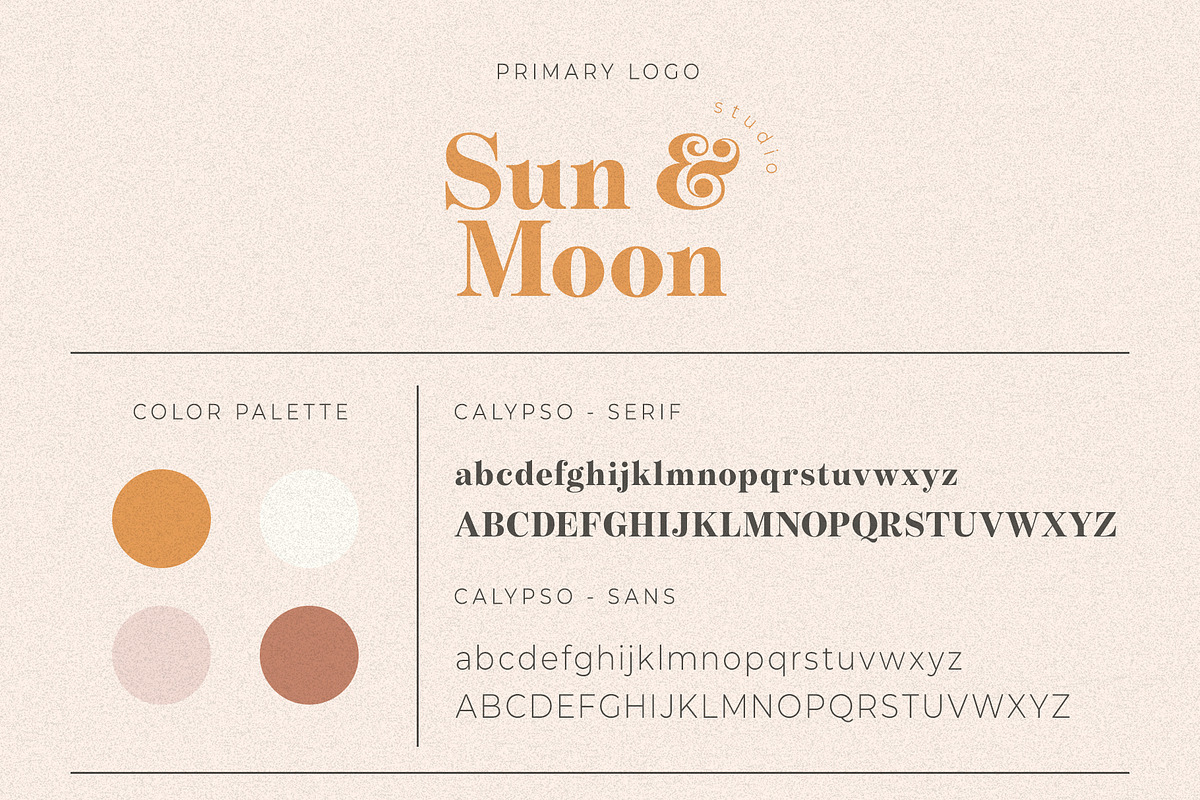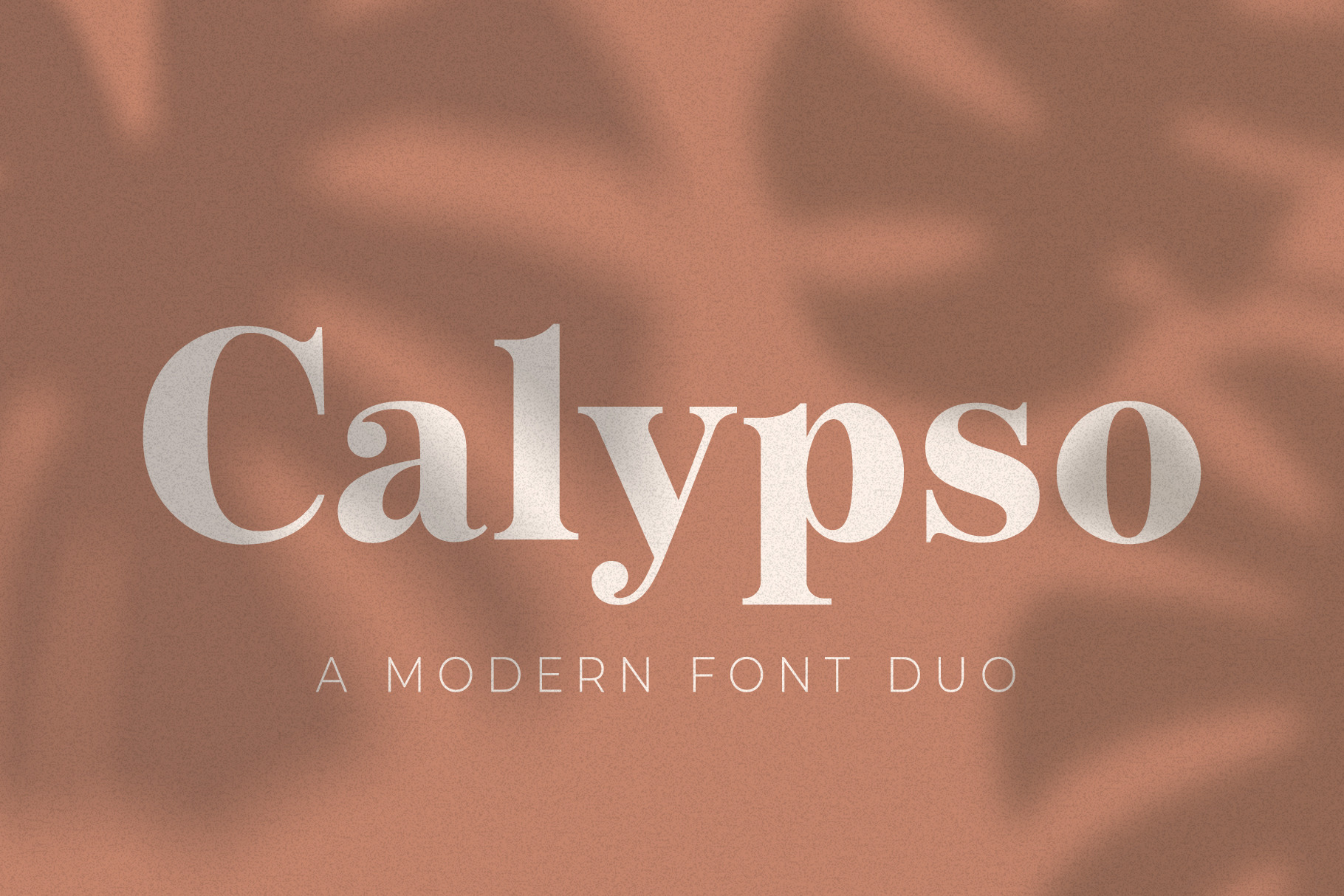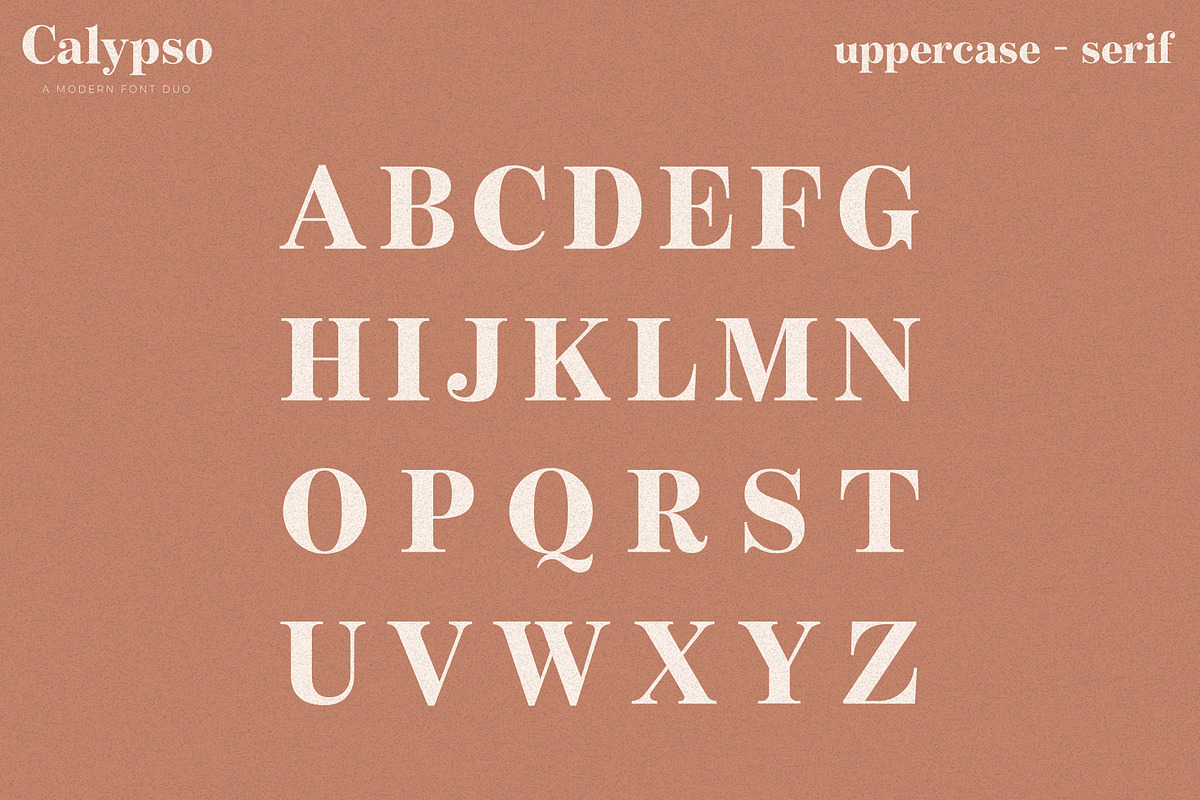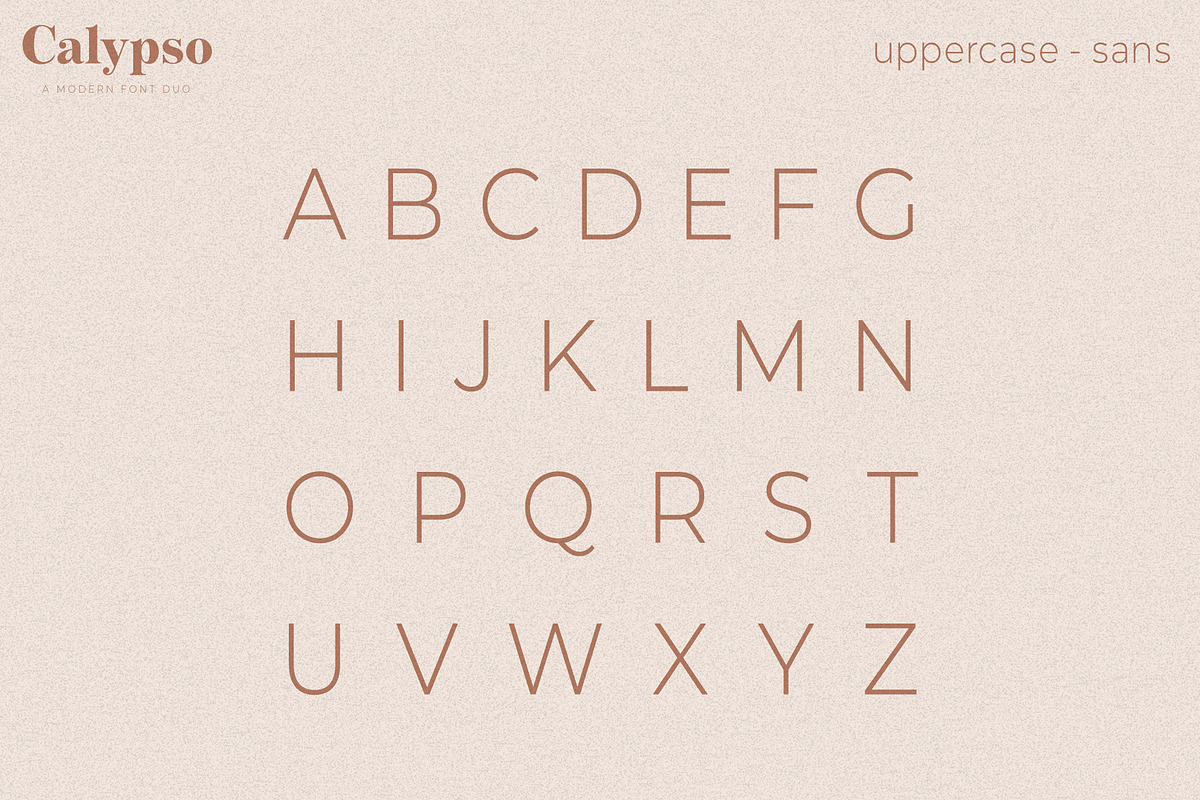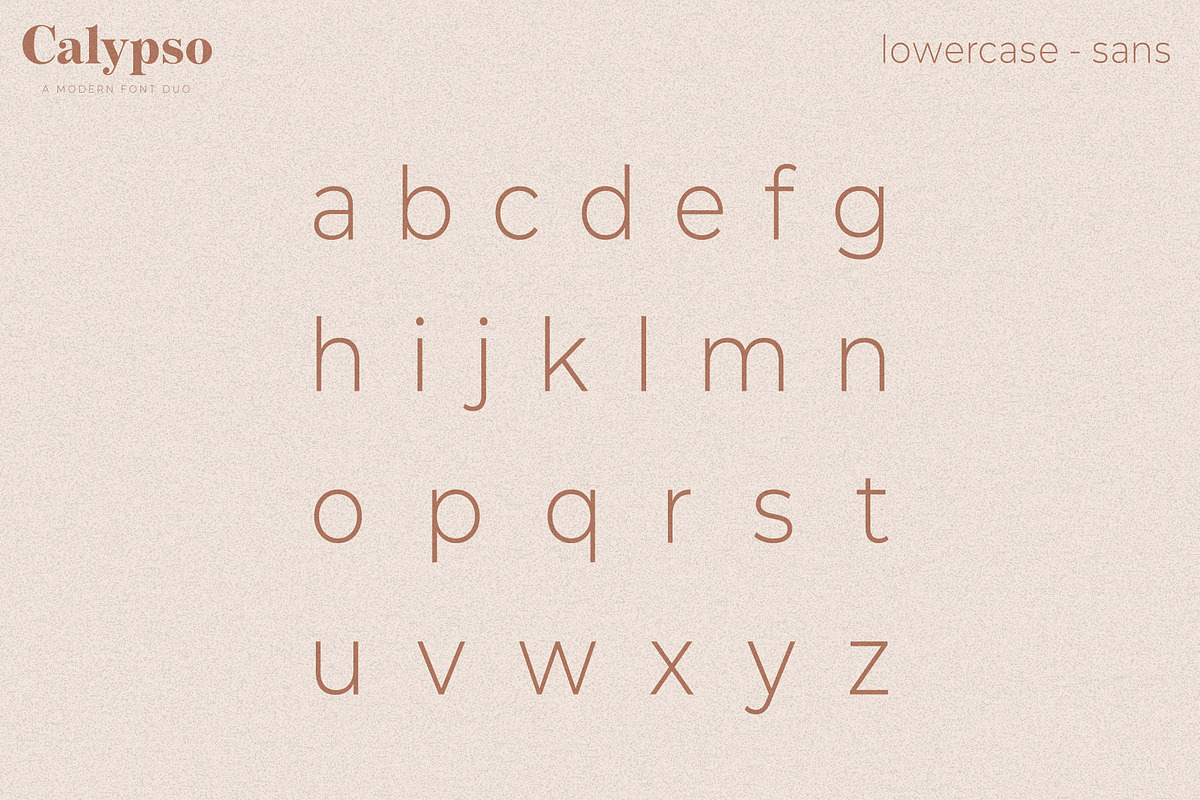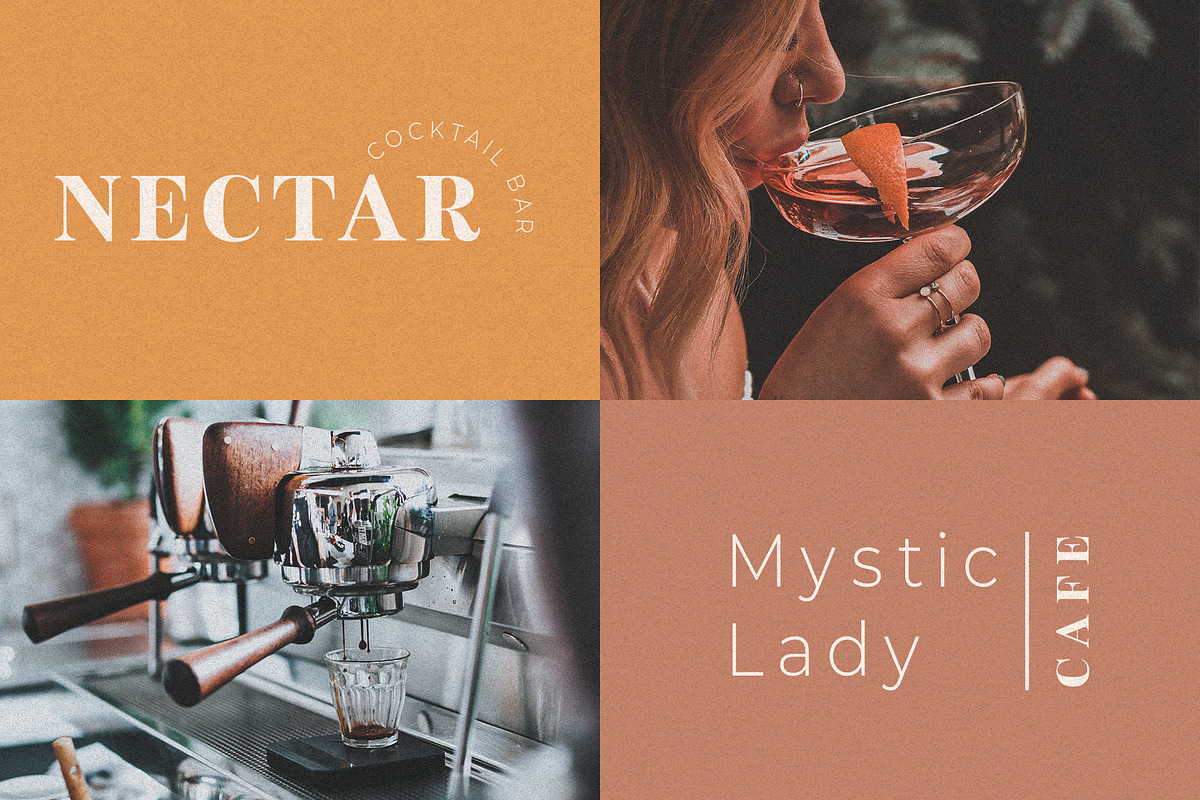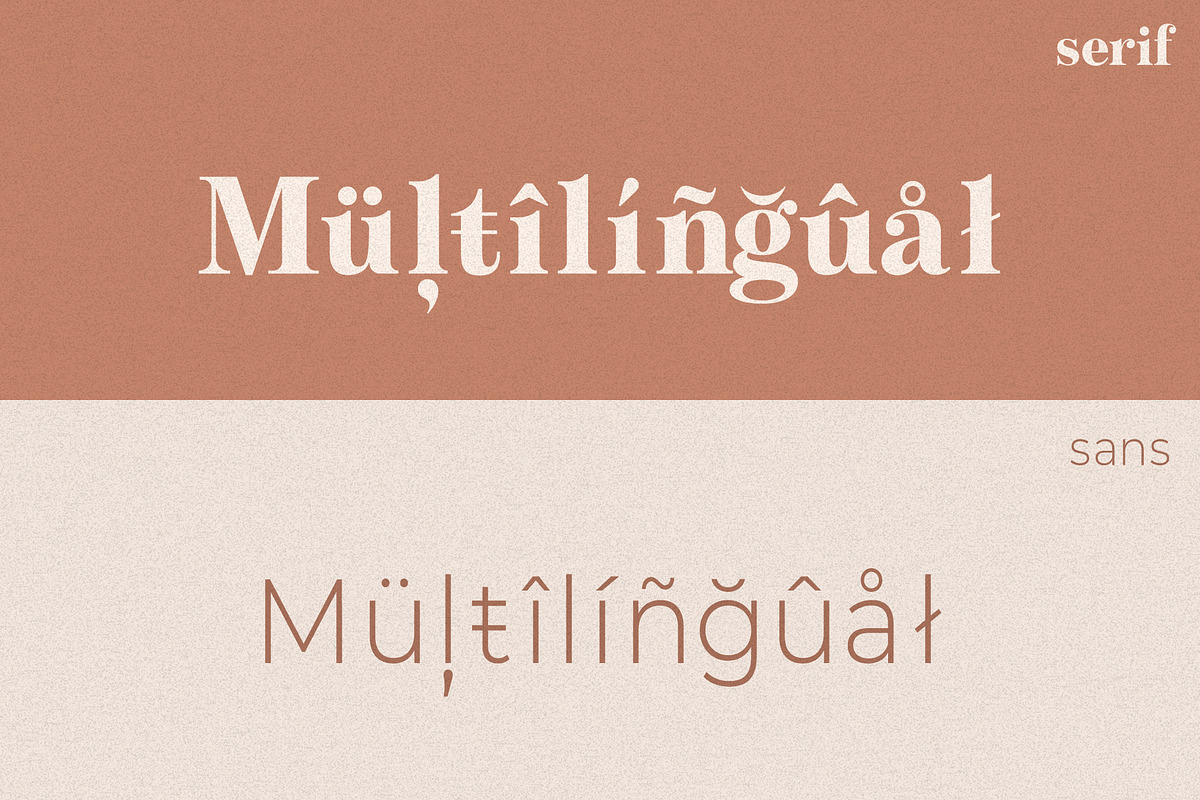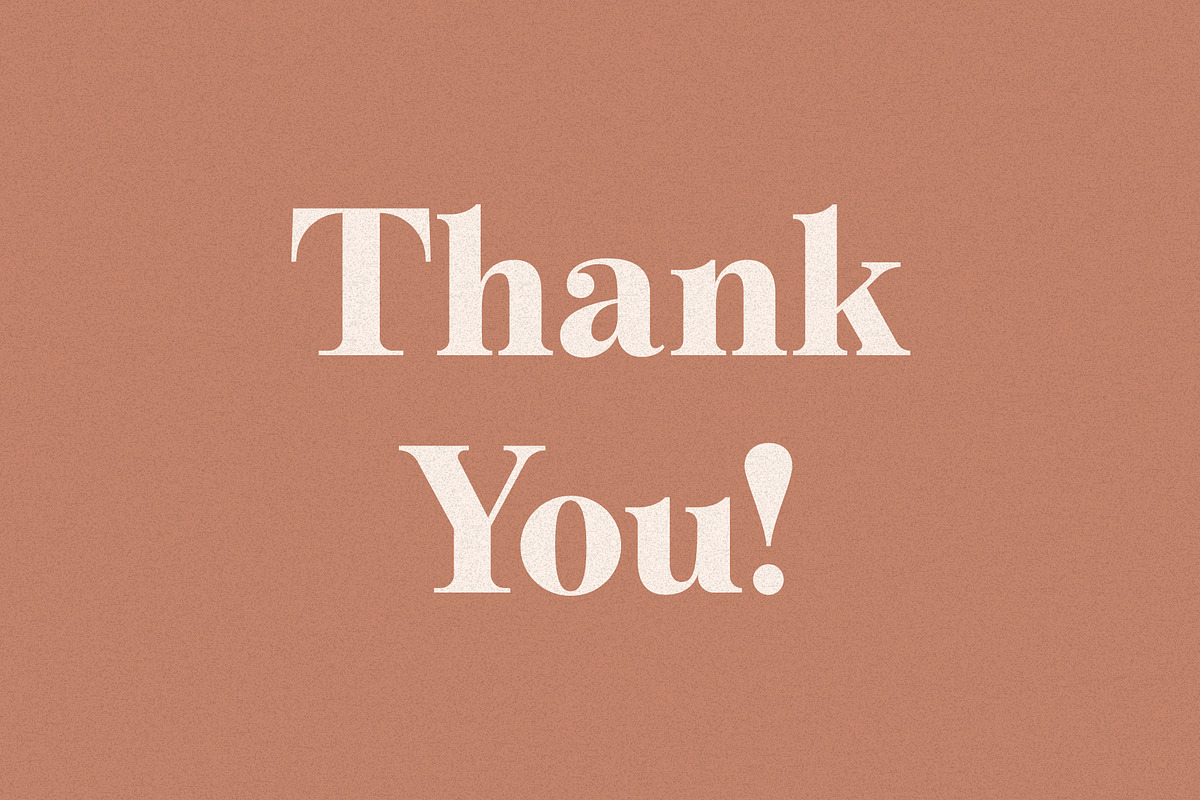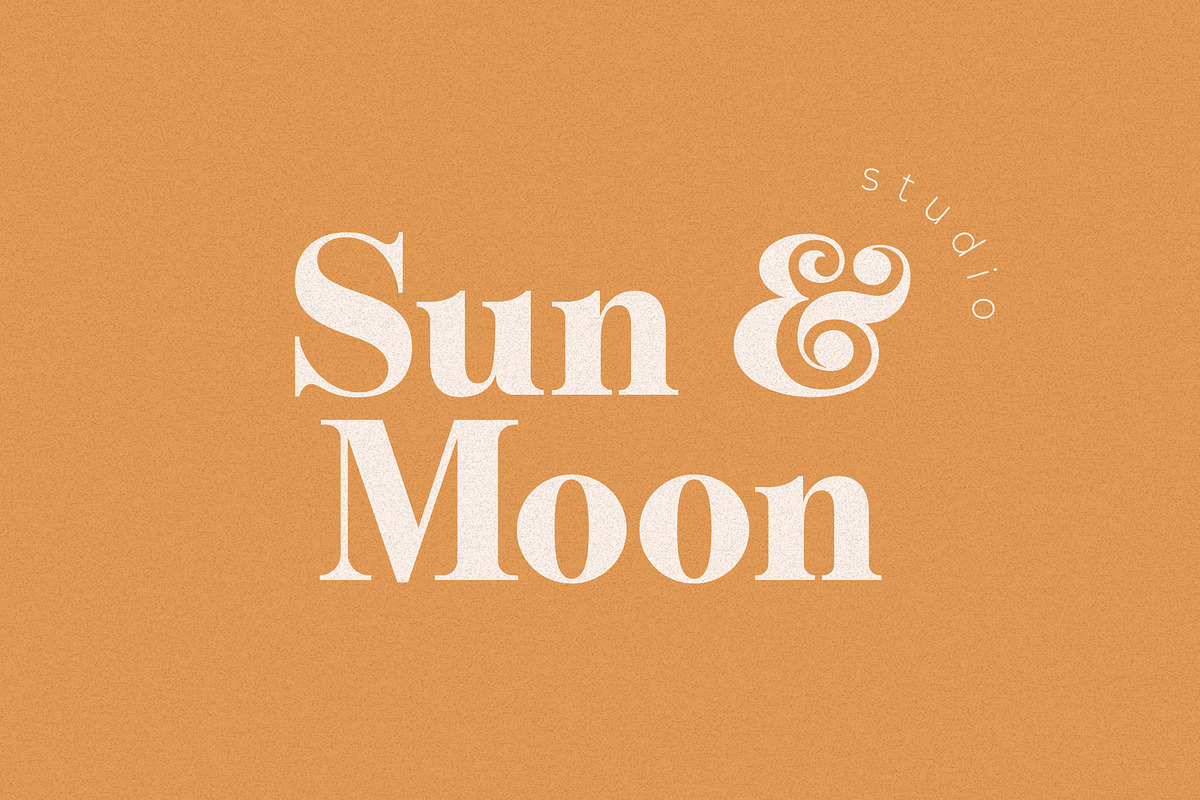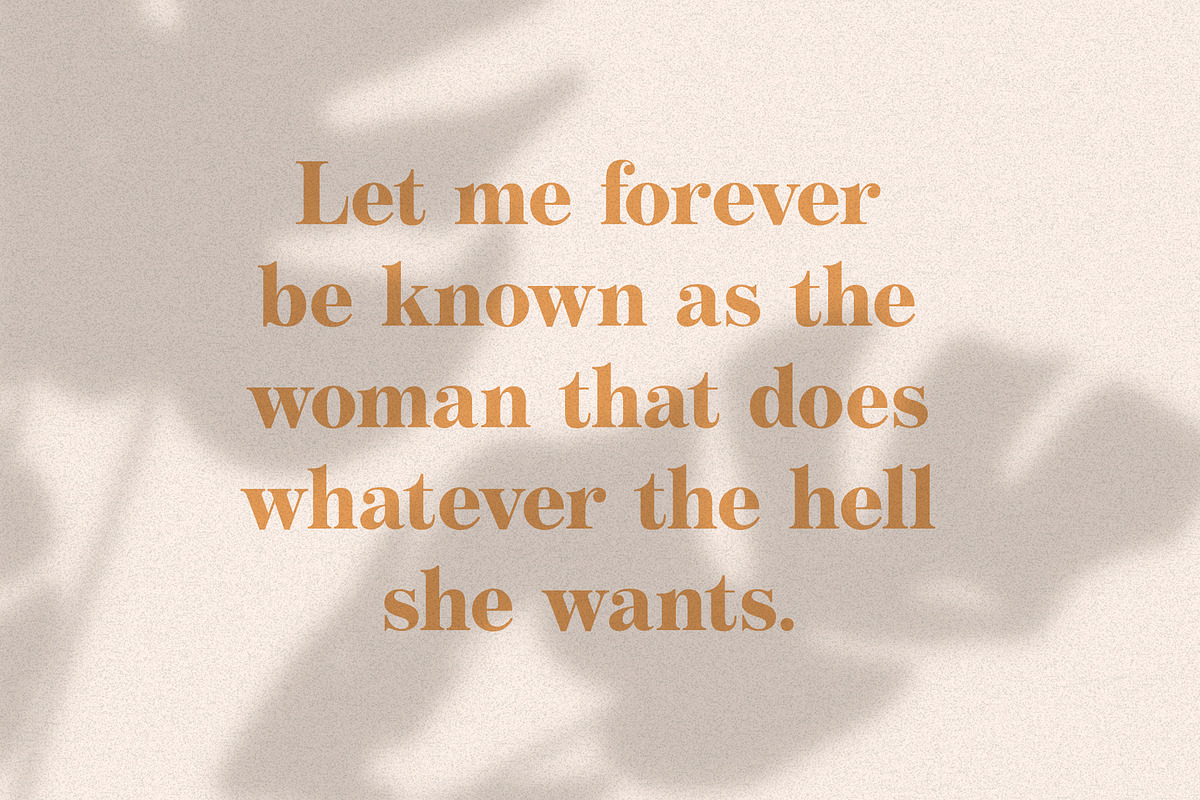
Calypso // A Modern Font Duo
Calypso is a modern serif and sans serif duo. Perfect for all sorts of projects such as logo design, branding, web design, packaging, social media, and so much more!
- Upper and lowercase letters
- Accented characters for the international designer
Languages Supported: Afrikaans, Albanian, Basque, Bokmål, Bosnian, Breton, Catalan, Cornish, Croatian, Czech, Danish, Dutch, English, Esperanto, Estonian, Faroese, Filipino, Finnish, French, Frisian, Friulian, Gaelic (Irish), Gaelic (Manx), Gaelic (Scottish), Gagauz (Latin), Galician, German, Hawaiian, Hungarian, Icelandic, Indonesian, Irish, Italian, Karelian, Ladin, Latvian, Lithuanian, Luxembourgish, Malay, Maltese, Norwegian, Nynorsk, Polish, Portuguese, Romanian, Sami, Serbian (Latin), Slovak, Slovenian, Sorbian, Spanish, Swedish, Swiss German, Turkish, and Welsh.